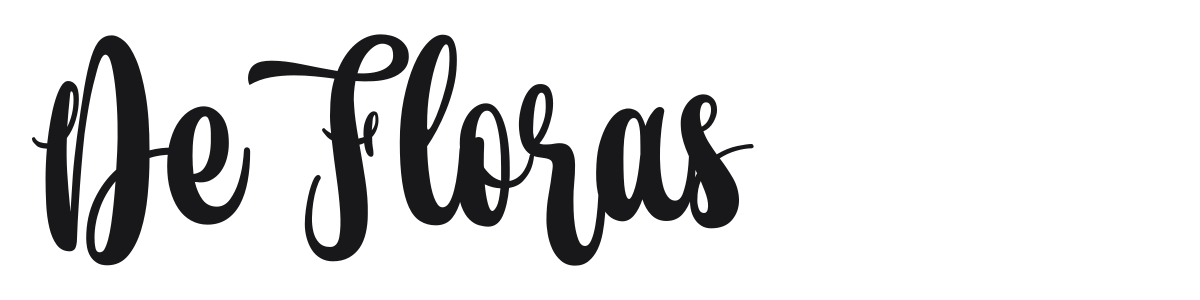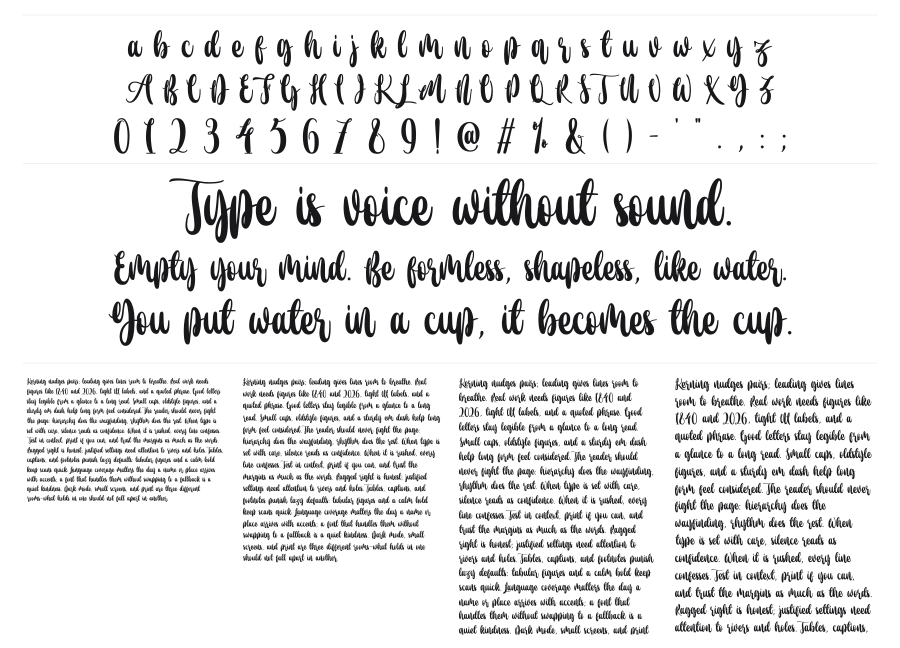
De Floras
De Floras is a bold brush script with sweeping connected strokes and a lively, hand-lettered rhythm. The generous loops and high contrast between thick and thin strokes give it real calligraphic energy without feeling stiff. It works best at large sizes where the fluid movement can breathe.